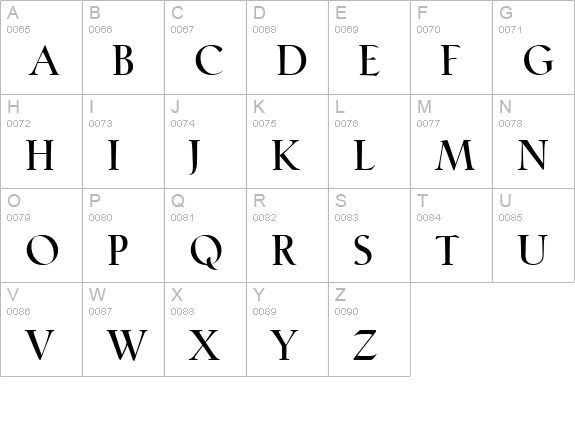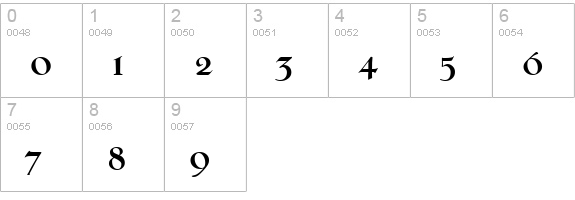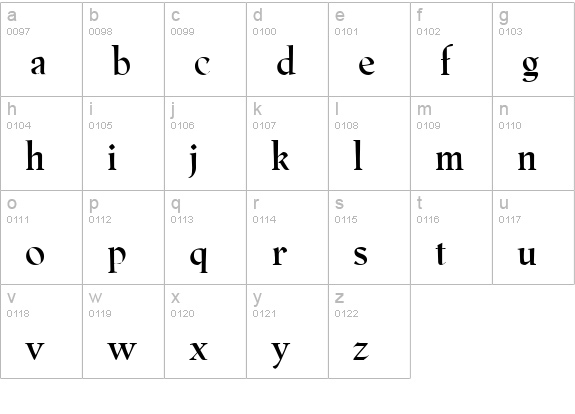
CosenzaBold Font Details
CosenzaBold is an elegant and versatile typeface that exudes sophistication and modernity. With its bold and striking design, this font is perfect for creating eye-catching headlines, titles, and logos that demand attention. The clean lines and balanced proportions of CosenzaBold make it a versatile choice for both print and digital projects. What makes CosenzaBold even more appealing is that it is available for free download at FontsMarket.com. This means that you can easily access this high-quality font without any cost, making it a valuable addition to your design toolkit. Whether you're working on a branding project, editorial layout, or website design, CosenzaBold is sure to make a bold statement and elevate your work to the next level. Download this stunning font today and let your creativity shine with CosenzaBold.